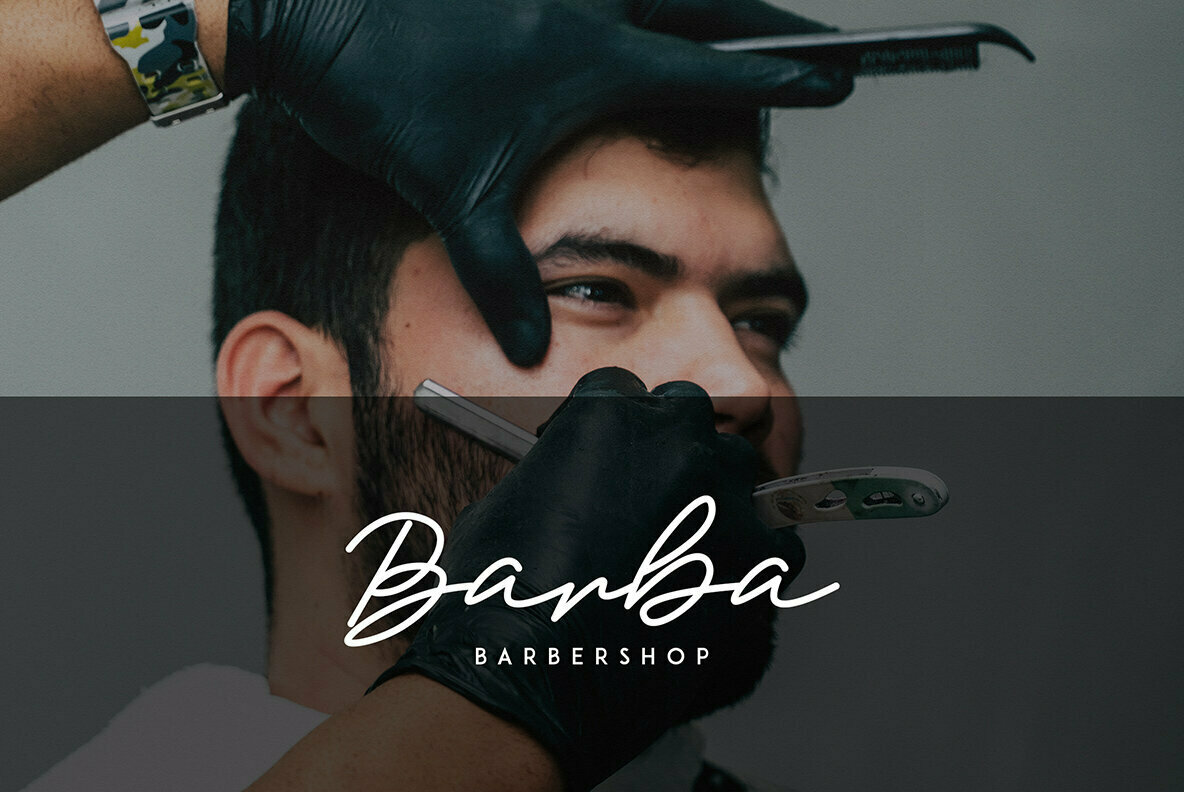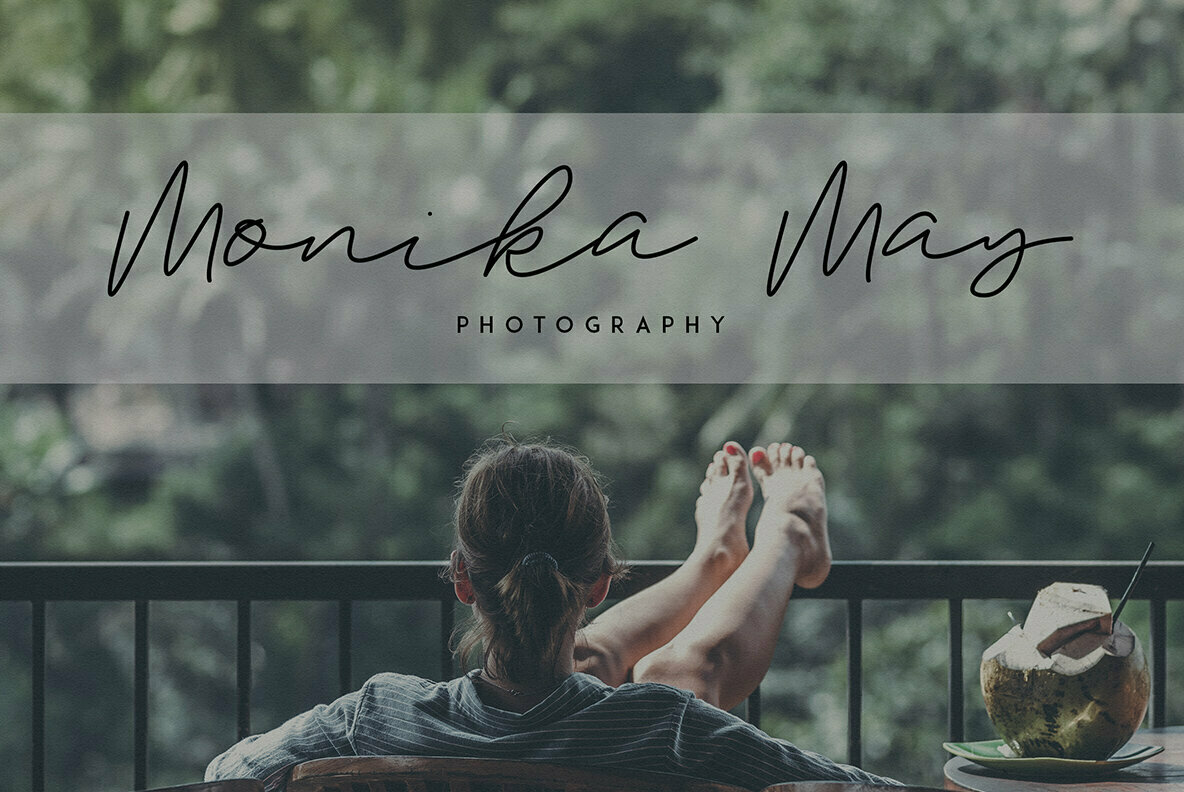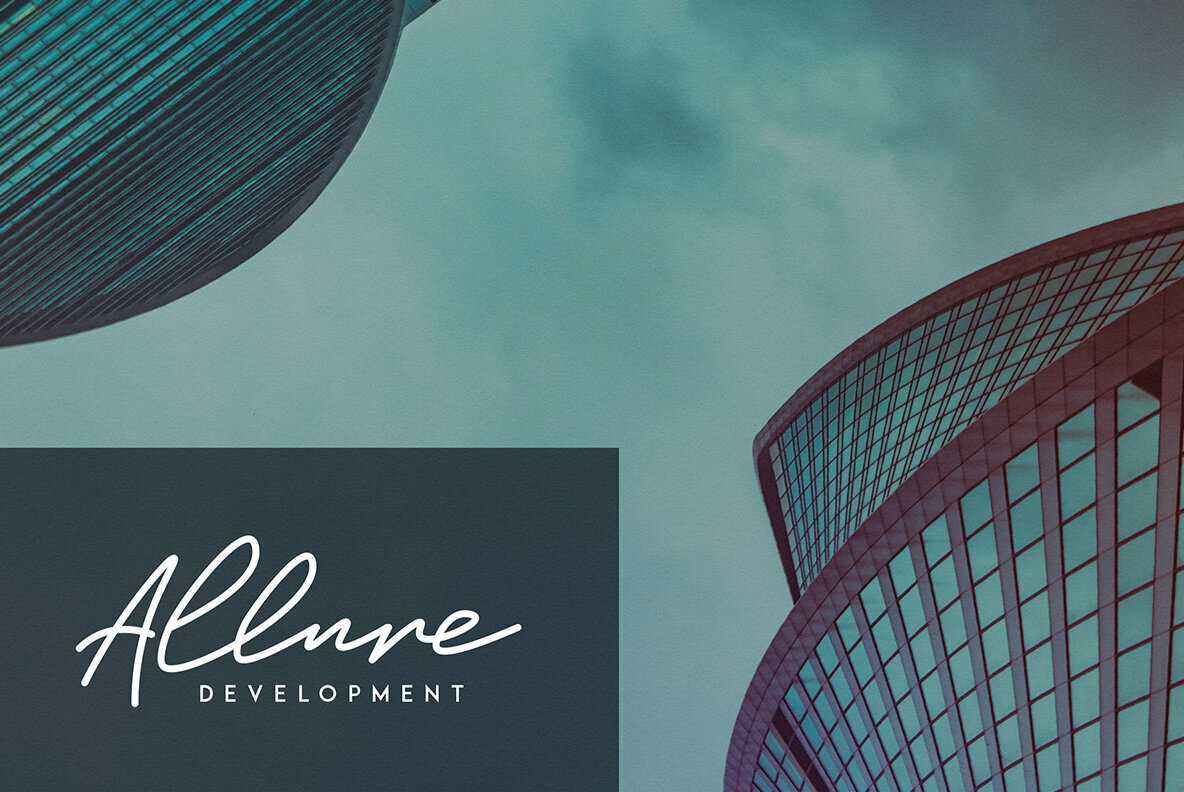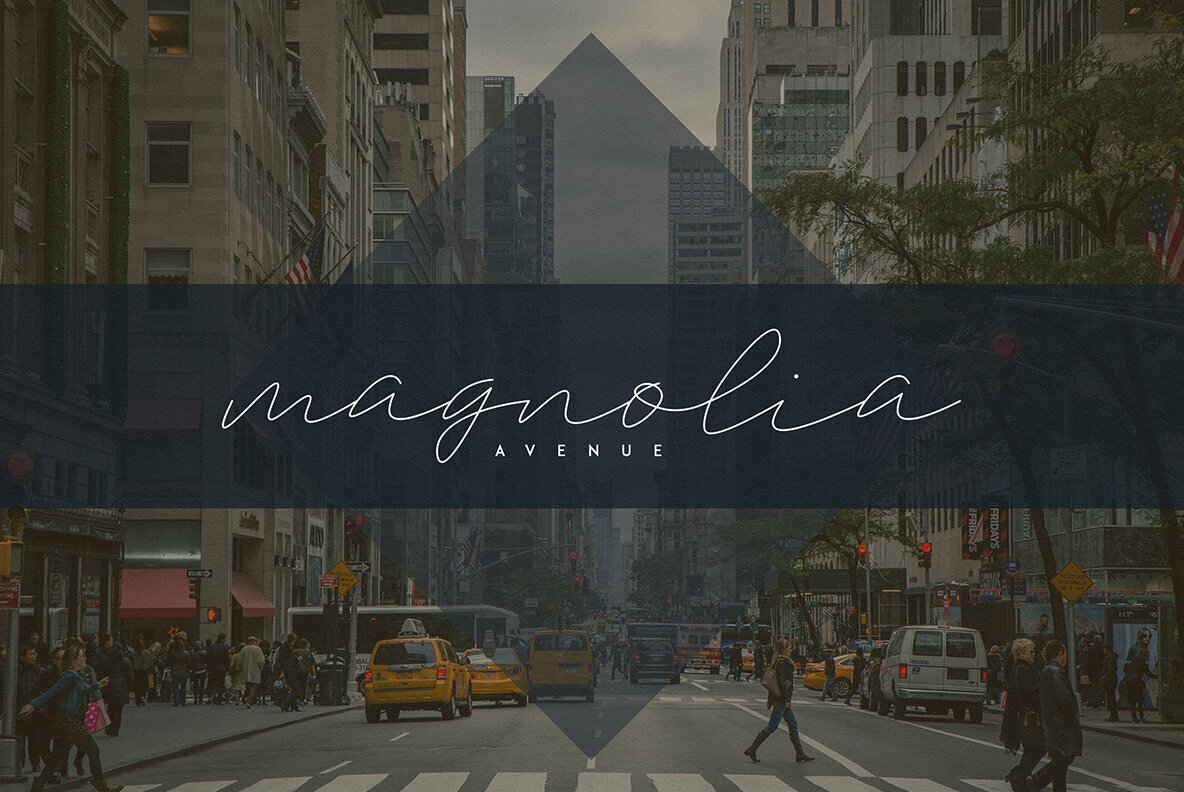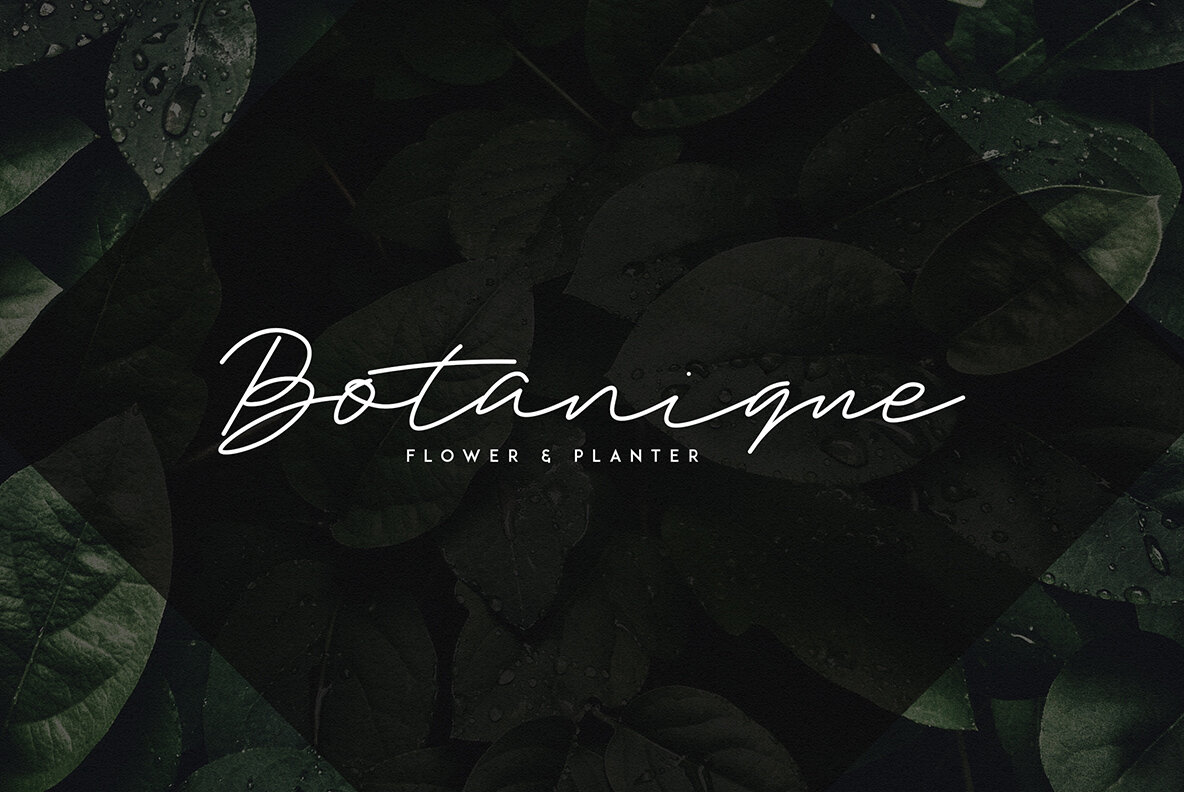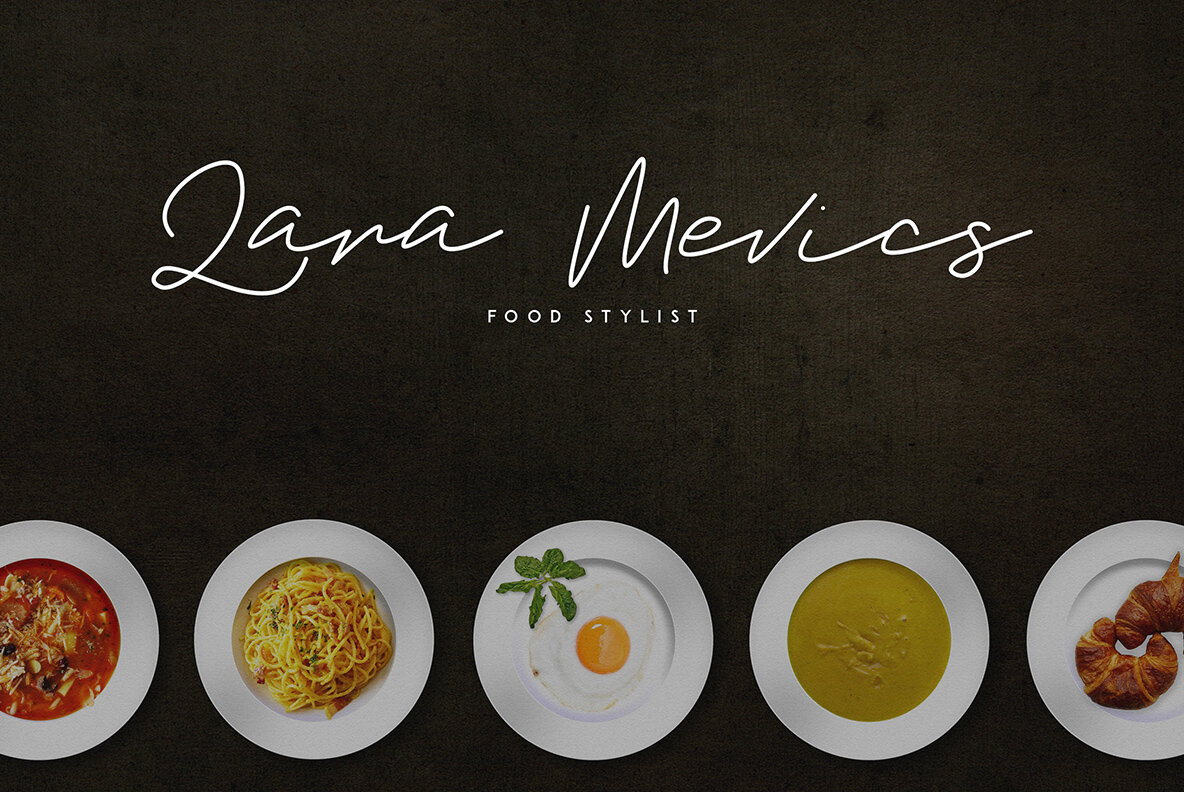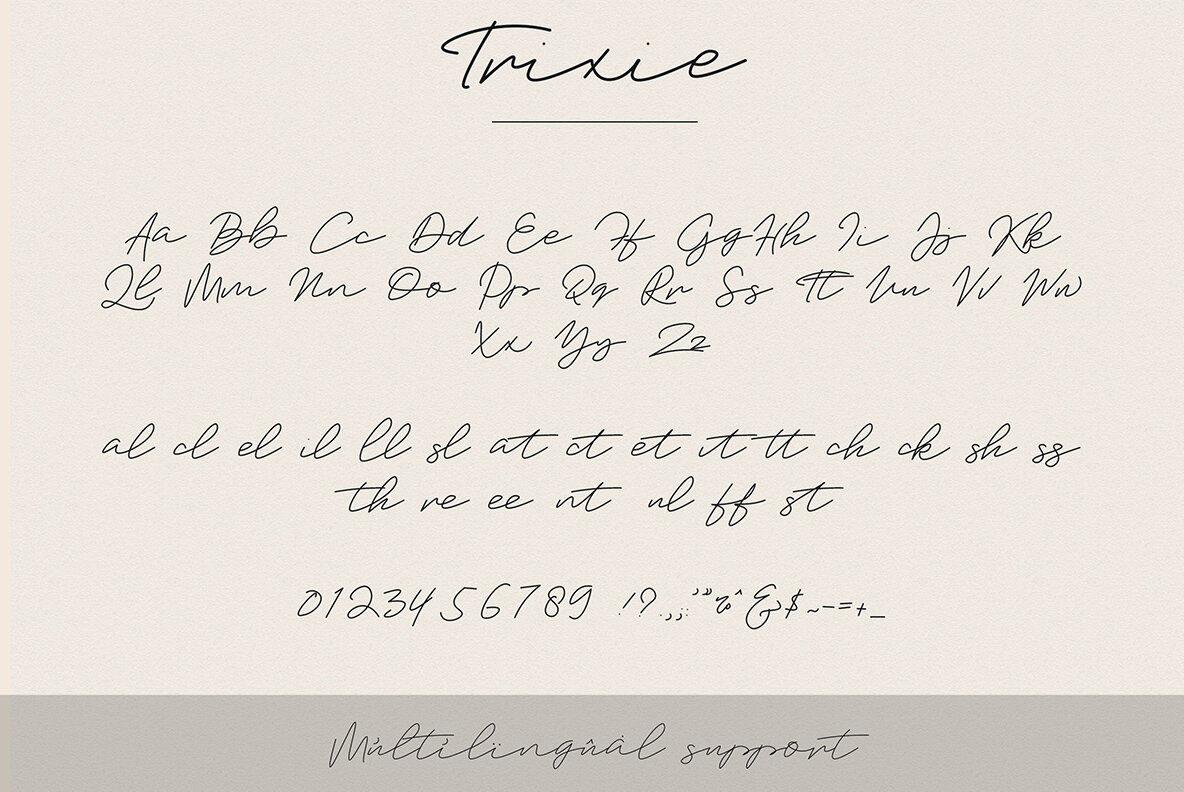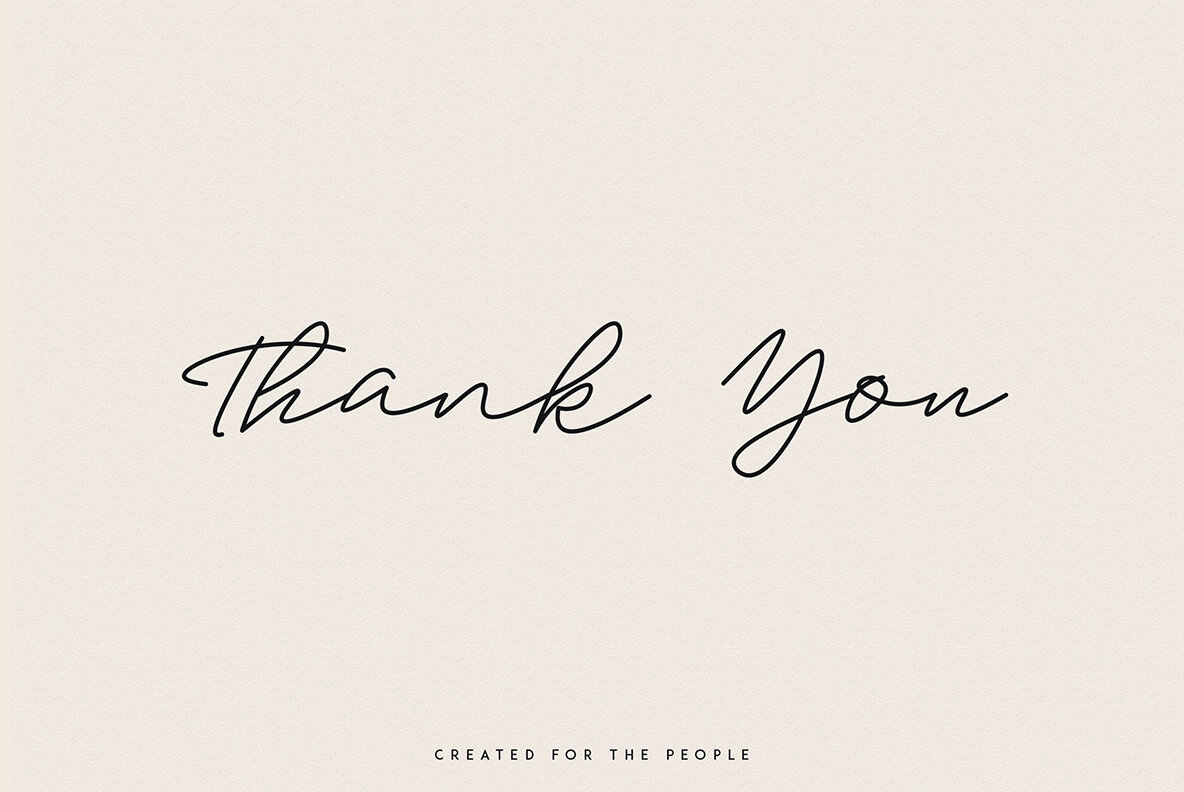
Trixie Script Font
Trixie is a signature, clean typeface with 3 weights and multilingual support. It's a very versatile font that works great in large and small sizes.Trixie is perfect for branding projects, home-ware designs, product packaging, magazine headers - or simply as a stylish text overlay to any background image.
- Uppercase, Lowercase, Numeral, Punctuation & Symbol
- Trixie Light
- Trixie Regular
- Trixie Bold
- Alternatives